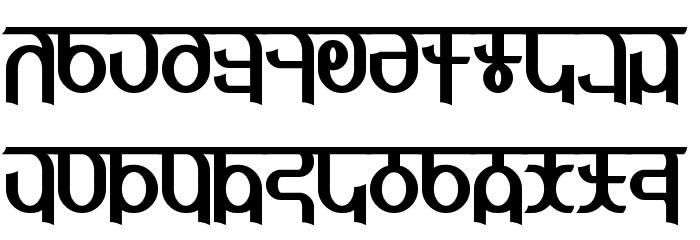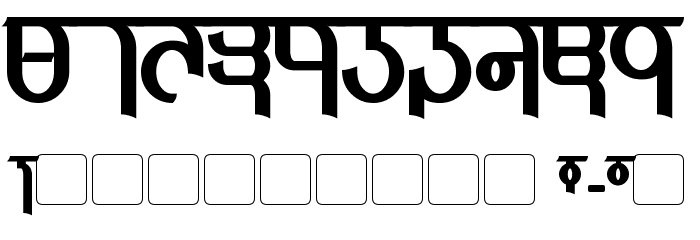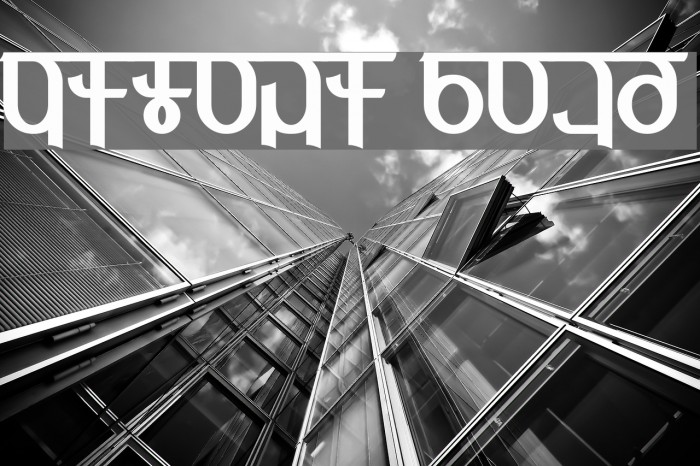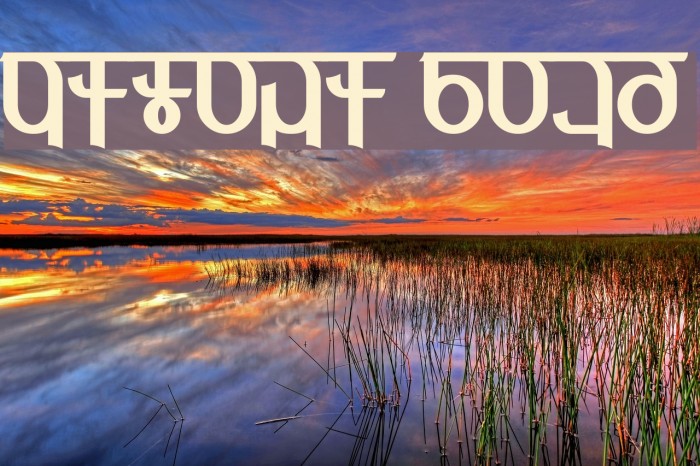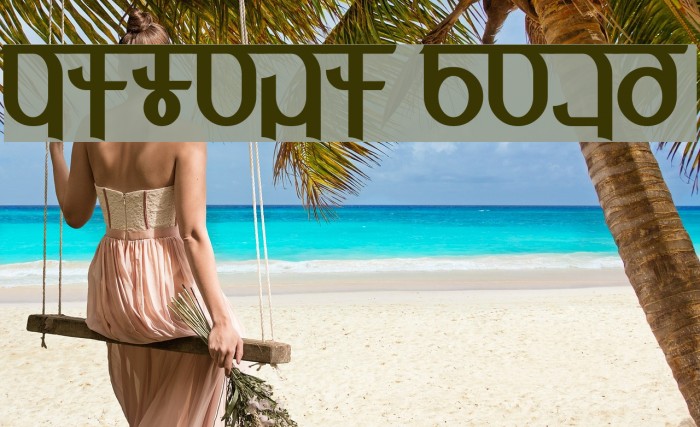
Qijomi Bold Font
This font features a bold and striking design with a unique blend of geometric and calligraphic elements. The characters are crafted with thick, consistent strokes that give it a strong presence, making it ideal for attention-grabbing headlines and titles. The angular shapes and sharp edges contribute to a modern and edgy appearance, while the uniformity in stroke width ensures readability. The font's distinct style is further enhanced by its high contrast, which adds to its visual impact. Overall, this font is a perfect choice for projects that require a bold and contemporary look.
A bold, geometric font with high contrast and modern appeal.
- Proposed Projects: Ideal for branding, posters, headlines, and digital media where a strong visual impact is needed.